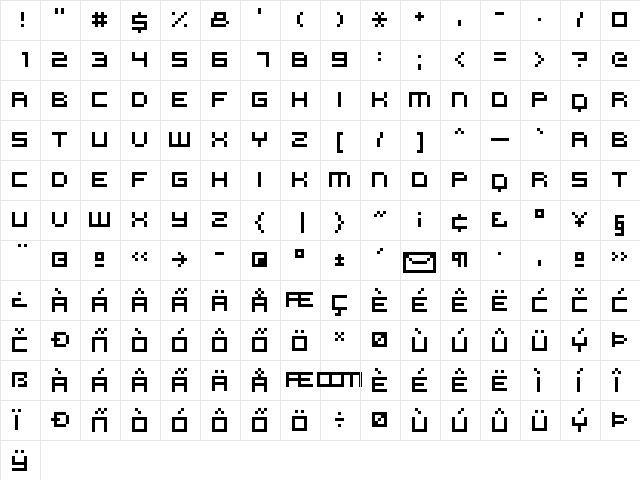
Virtual DJ Regular
Design Context for Virtual DJ Typeface
Virtual DJ is a composed and adaptable typeface that performs quietly and consistently across a wide range of design contexts.